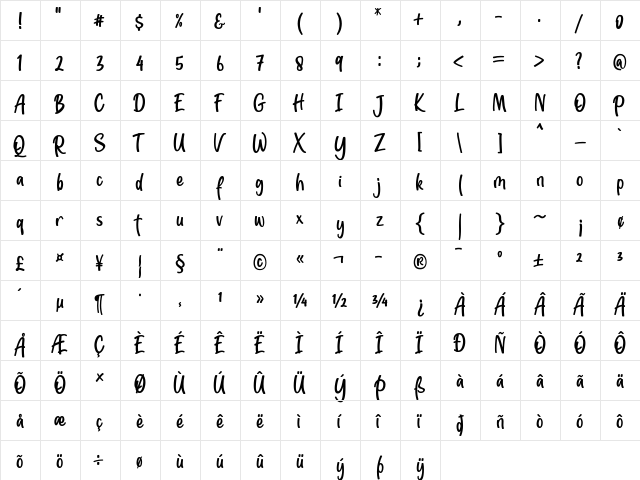
Jotilla Regular
| Foundry | 7NTypes |
| Designer | Adyfo; Situjuh Nazara |
Design Context for Jotilla Typeface
Jotilla is a composed and adaptable typeface that performs quietly and consistently across a wide range of design contexts.